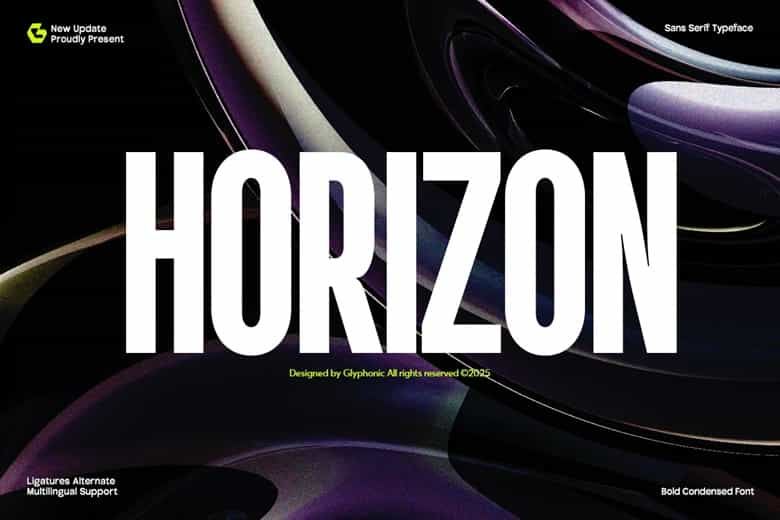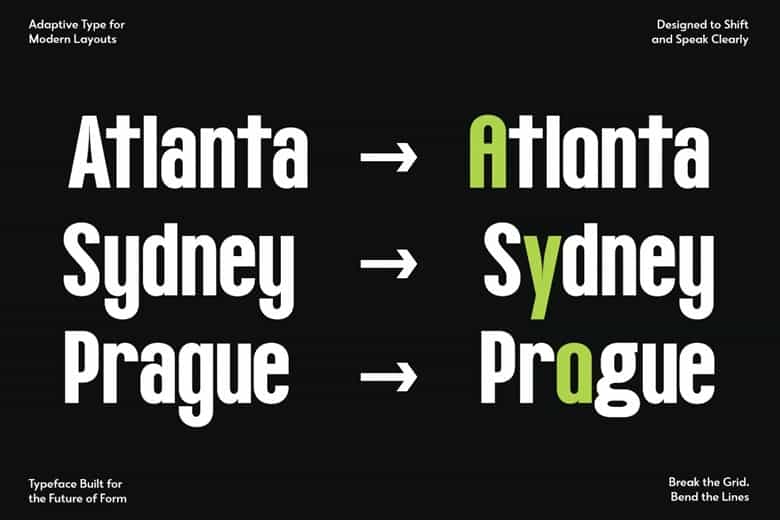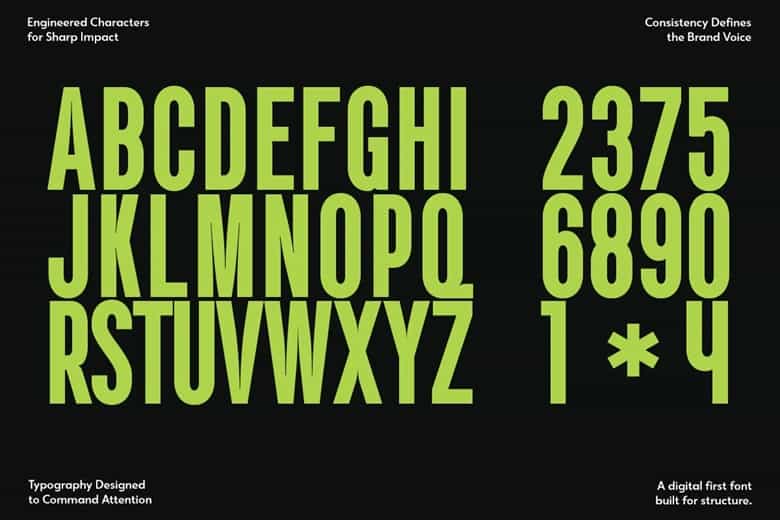
Discover GC Horizon Font, part of the Sans Serif collection—a versatile and unique font perfect for adding a personal touch to your projects. Download it for free and enjoy crafting designs with style, from invitations to social media posts. This font is available exclusively for personal use, giving you the freedom to create without limits. Unlock your creativity with GC Horizon Font today!
Horizon is a new condensed font that blends modern bold with Edgy style. It can be used perfectly in headlines, branding, logos, packaging, elements of editorial layouts and is developed to make an lasting impression. Horizon lends personality and sophistication to any design using its high contrast strokes, modern sans, and future style. With this typeface you can either create fashion, lifestyle or artistic visuals with a vast potential and class.